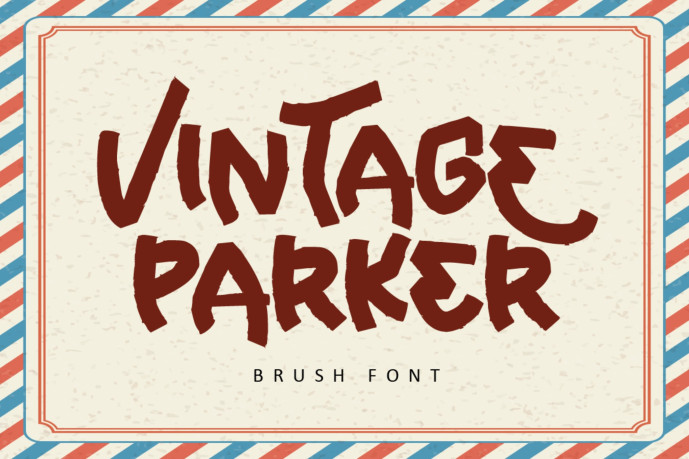
Vintage Parker – Brush Font
Designer: illushvara
Vintage Parker – Brush Font offers beautiful typographic harmony for a diversity of design projects, including logos & branding, social media posts, advertisements & product designs.